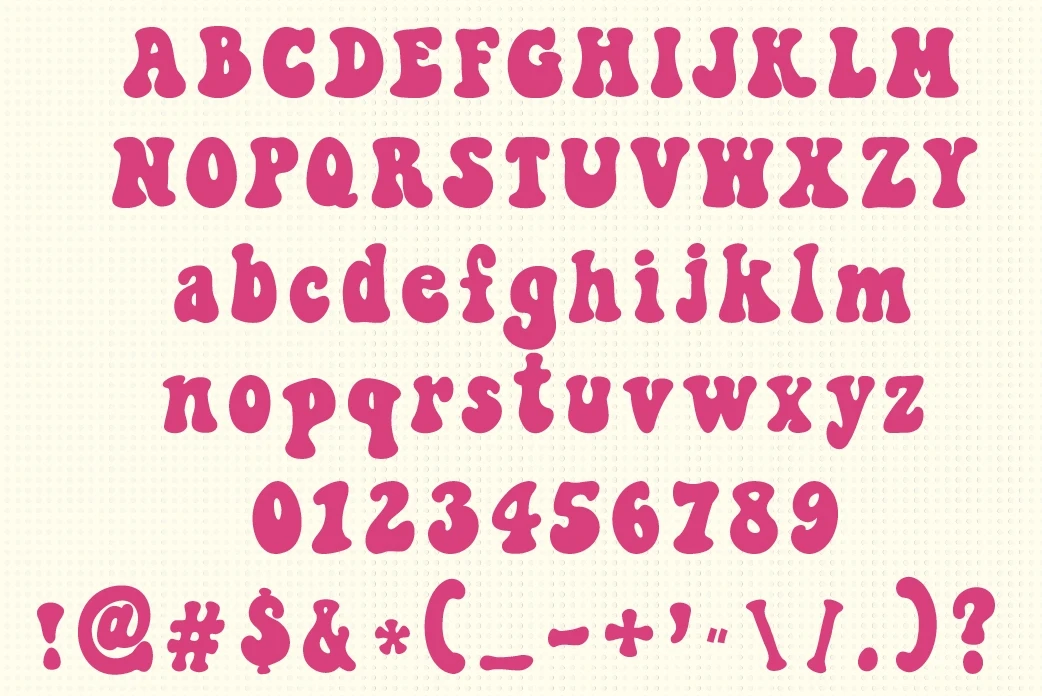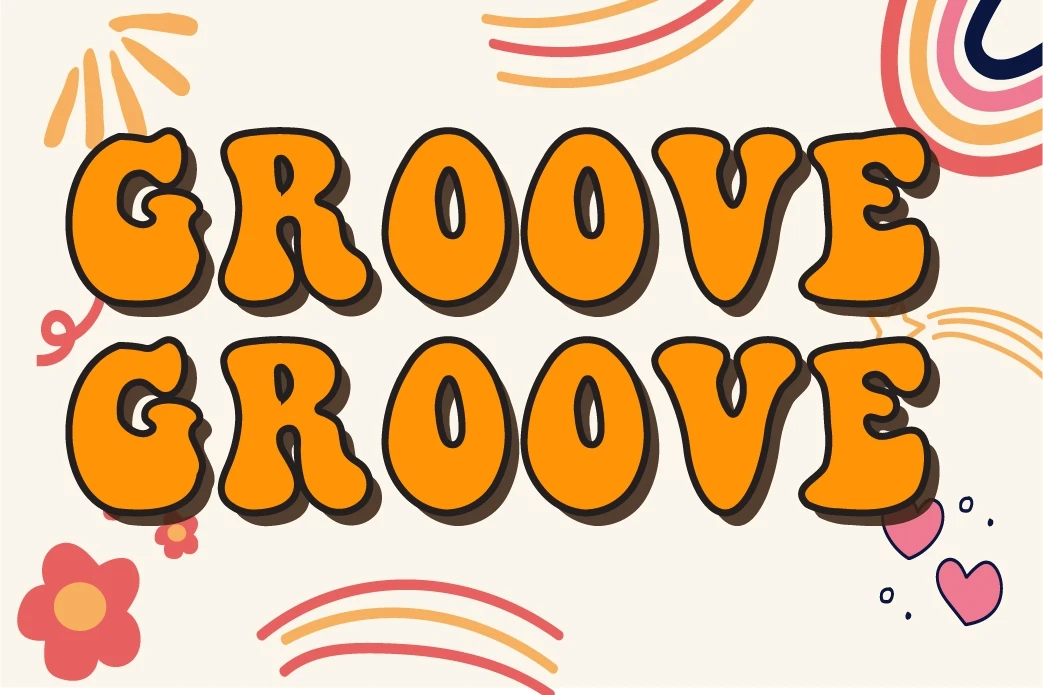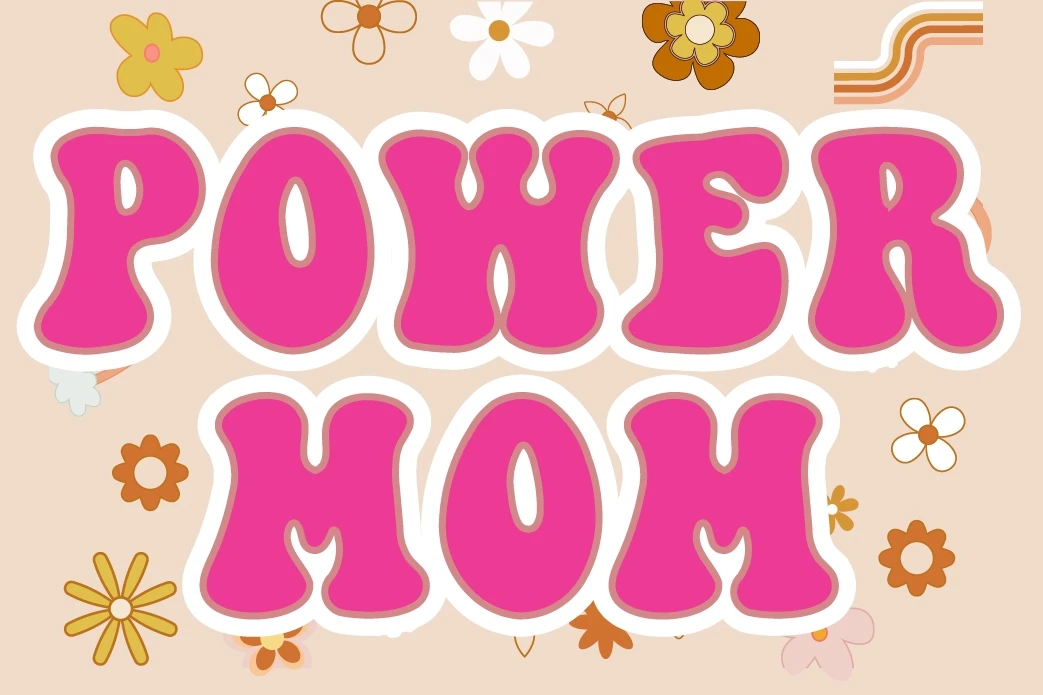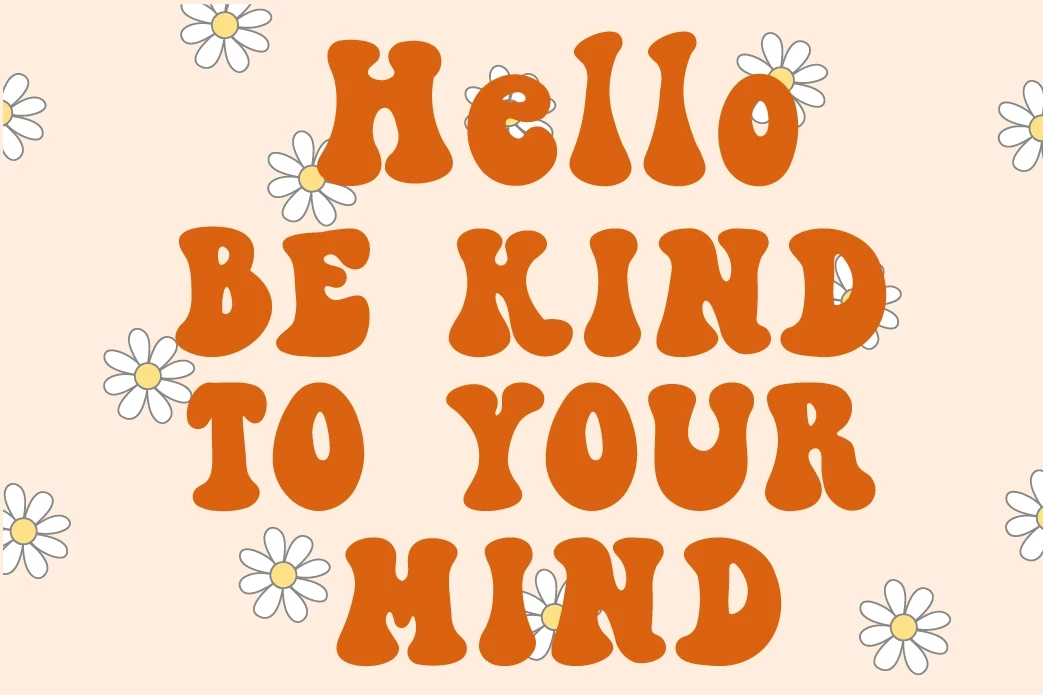
Groove Groove retro 60s style font Provide knowledge, fun and gentleness.
Perfect for logos, stickers, packaging designs, t-shirts, posters, invitations, Instagram, websites or any of your creative design projects.